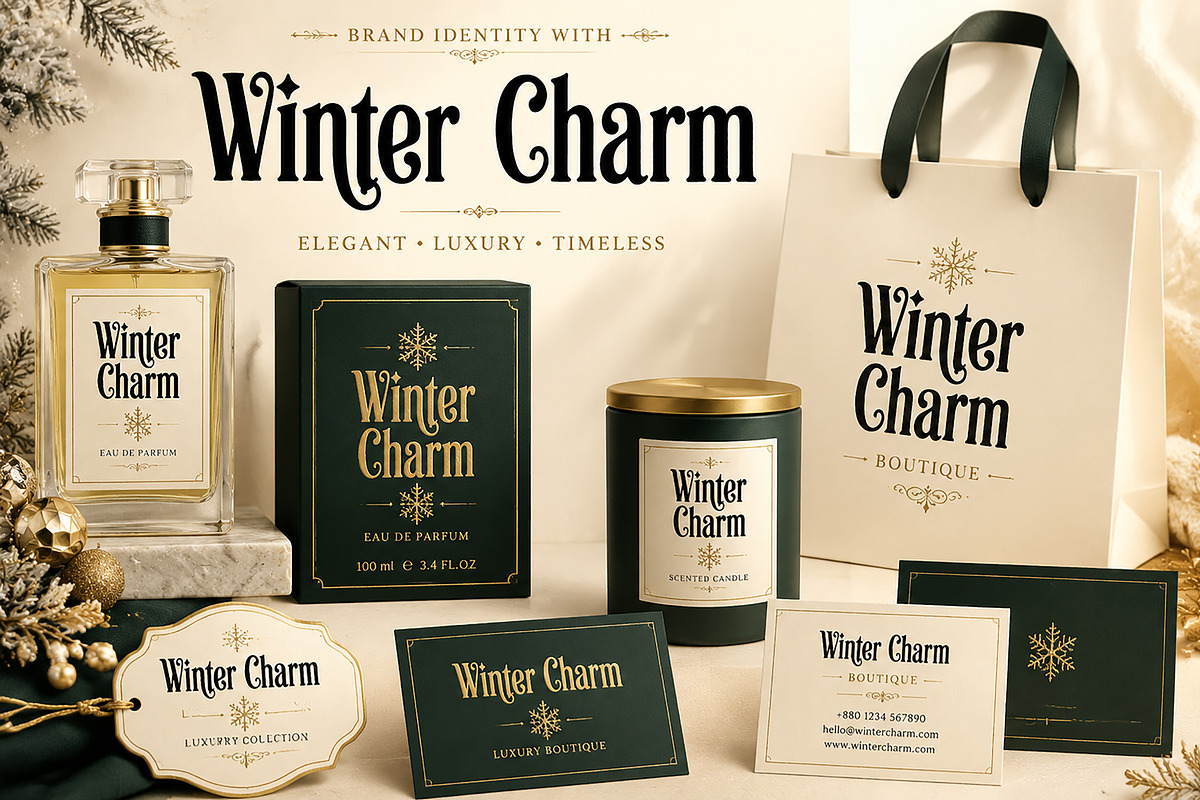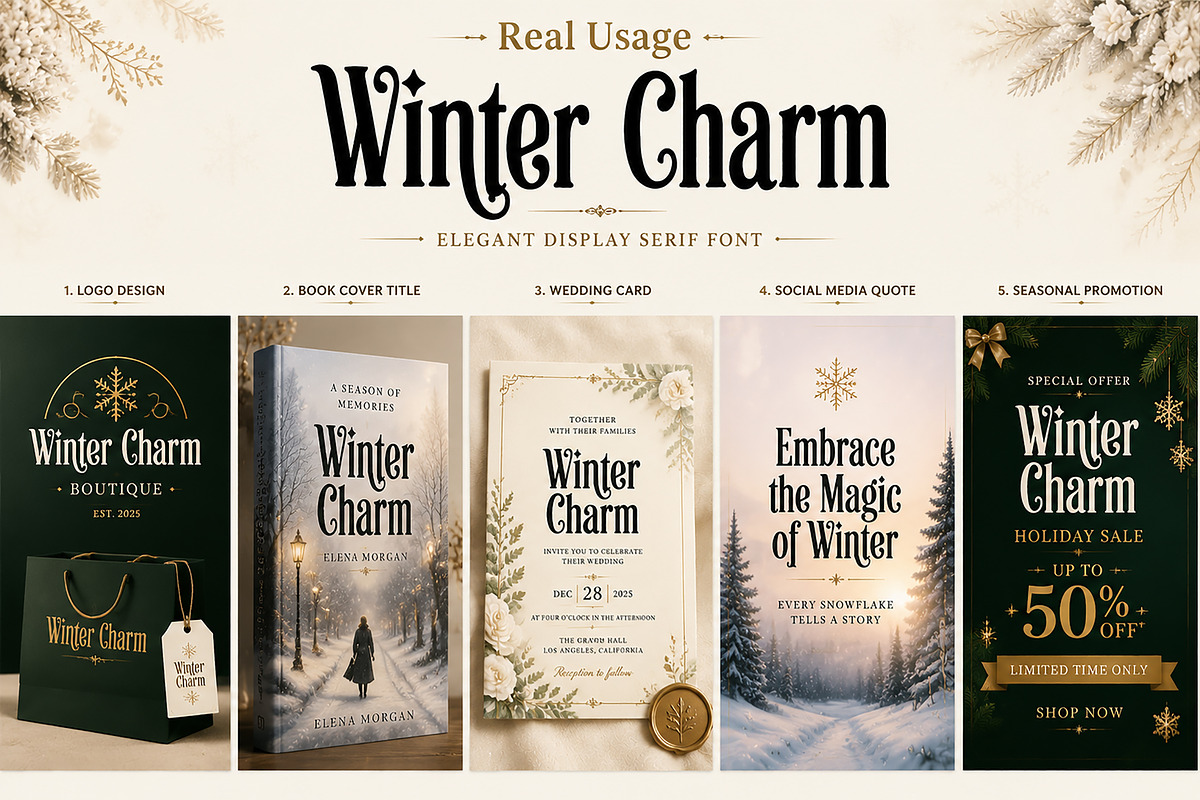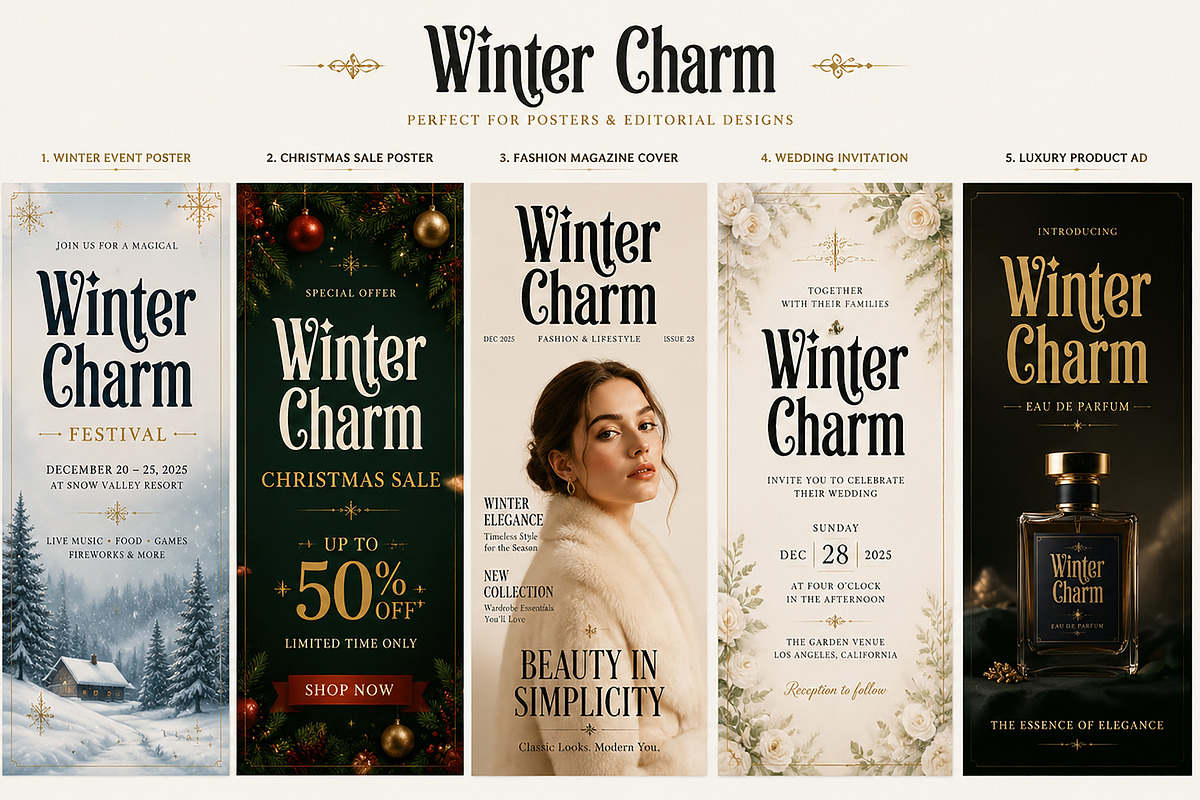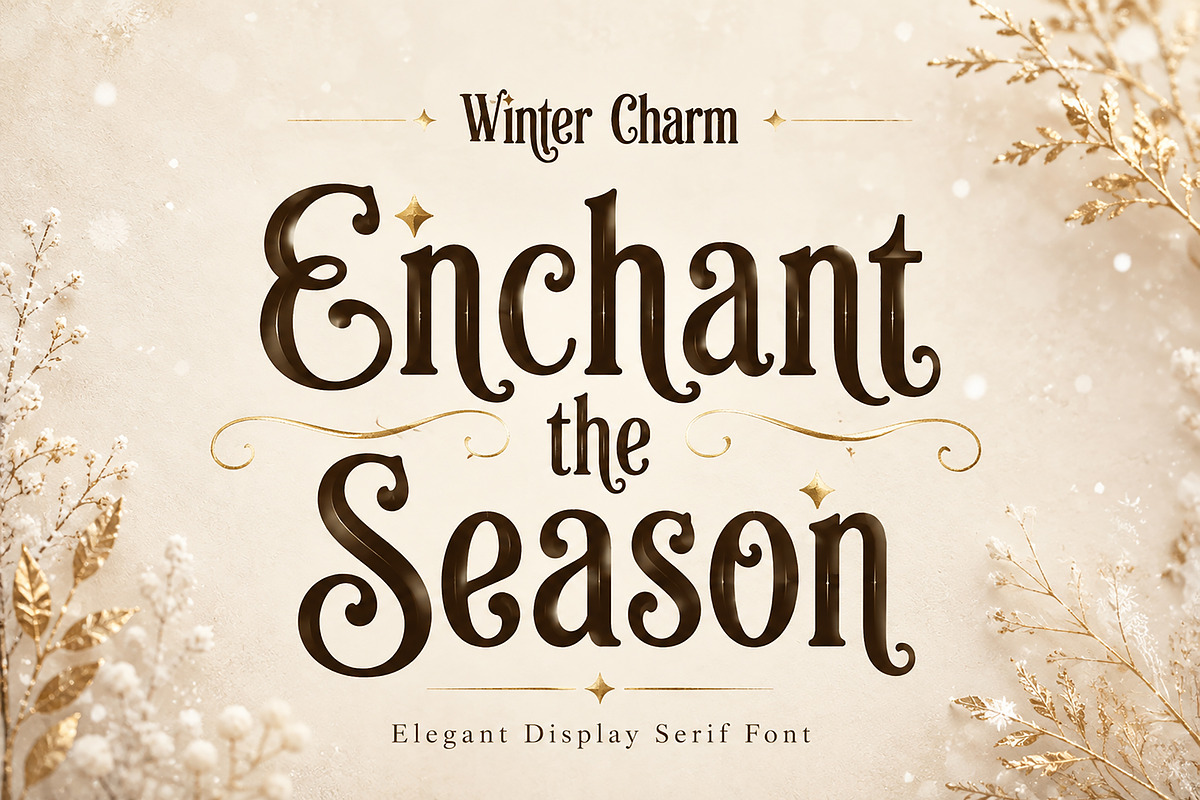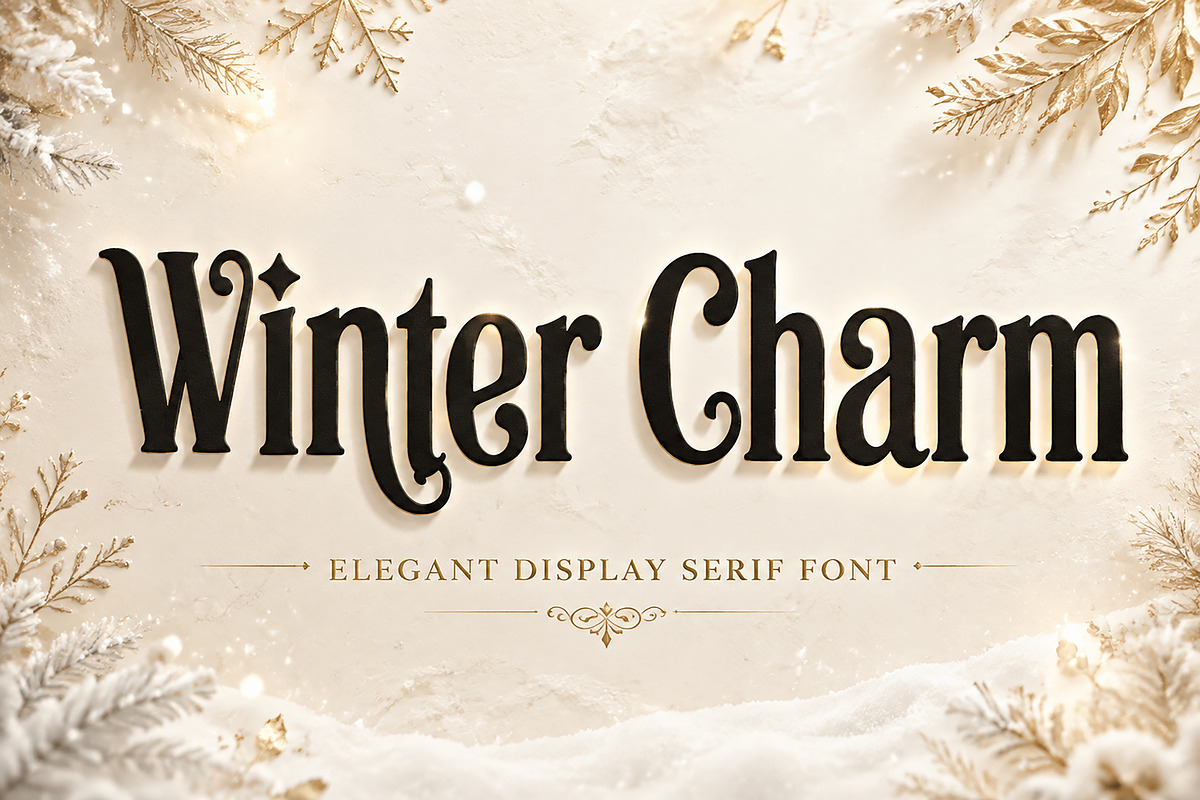
Winter Charm
Winter Charm – Elegant Display Serif Font
Winter Charm is a sophisticated display serif font inspired by timeless elegance, winter aesthetics, and luxury editorial design. Featuring graceful curves, refined serif details, and a unique decorative character style, this font is perfect for creating premium designs with a classic and stylish atmosphere.
Designed for designers who want to add a luxurious touch to their projects, Winter Charm works beautifully for seasonal branding, fashion editorials, wedding invitations, luxury logos, packaging, posters, social media graphics, and high-end promotional materials.
Its elegant appearance makes every headline feel exclusive, memorable, and visually captivating.
✔ Luxury Brand Identity
✔ Logo Design
✔ Fashion & Beauty Branding
✔ Wedding Invitations
✔ Christmas & Winter Designs
✔ Editorial Magazine Covers
✔ Book Covers
✔ Product Packaging
✔ Boutique Branding
✔ Social Media Graphics
✔ Posters & Headlines
✔ Premium Advertising Designs
✔ Elegant Display Serif Style
✔ Unique Decorative Letter Details
✔ Premium Luxury Appearance
✔ Perfect for Large Headlines & Titles